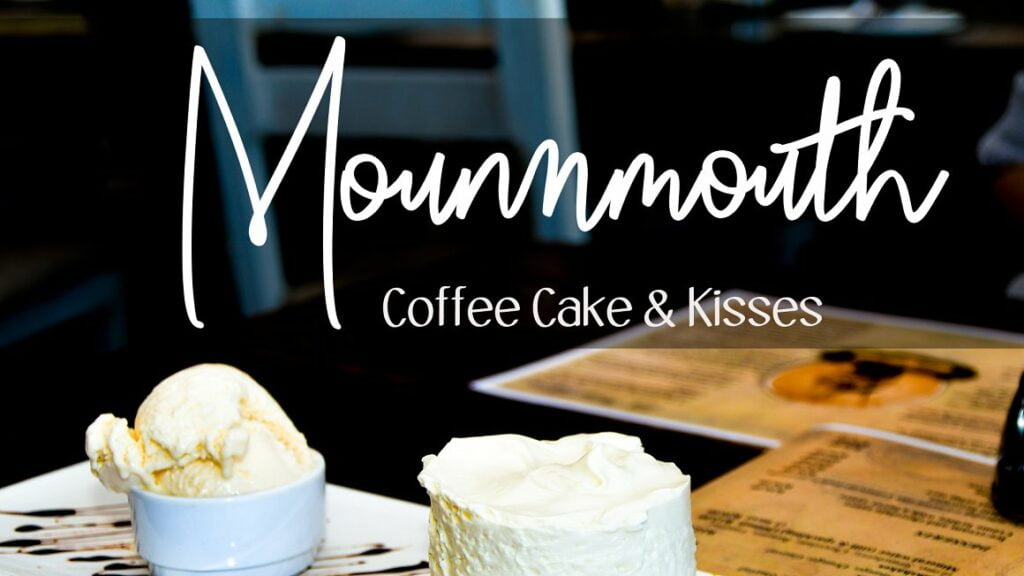
Christina Allie Font
Christina Allie is a high quality Handwritten font that is designed by Zulkhairi M Saleh and is available for free download and personal use. The free version provides all uppercase and lowercase letters and a few special characters too.